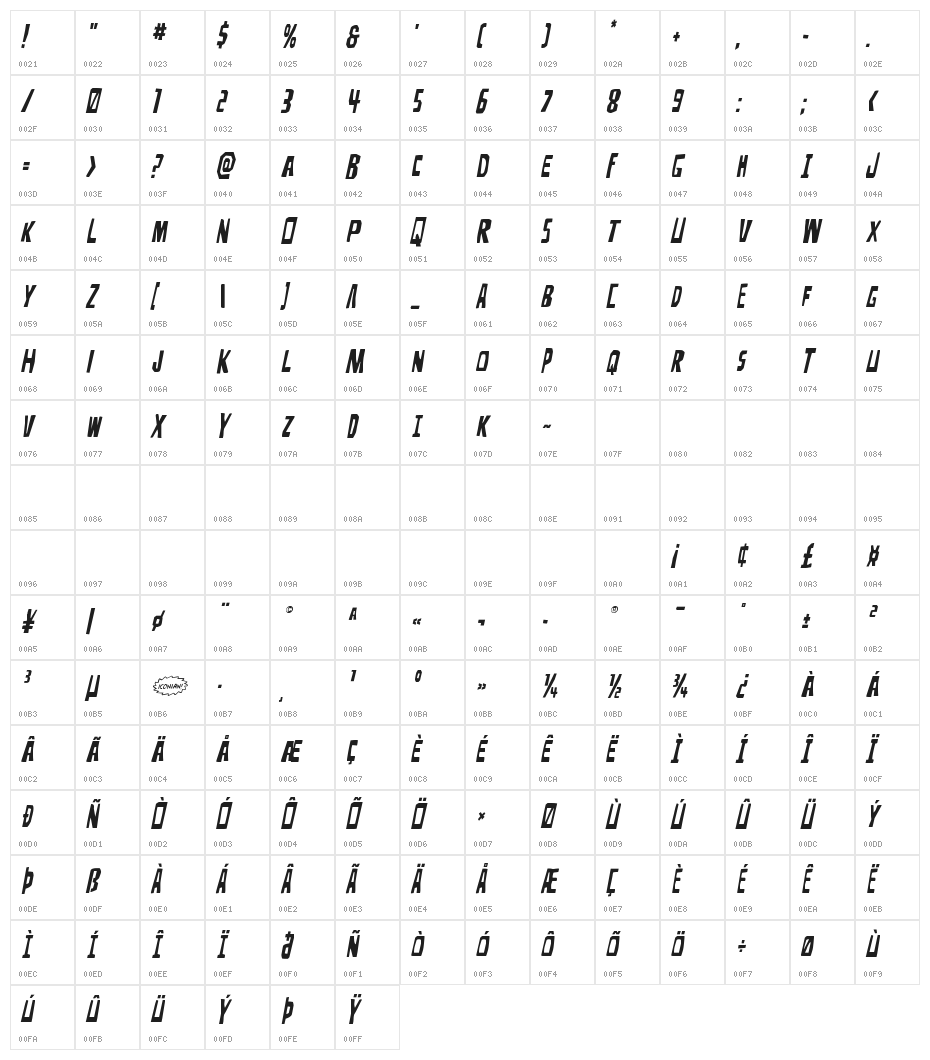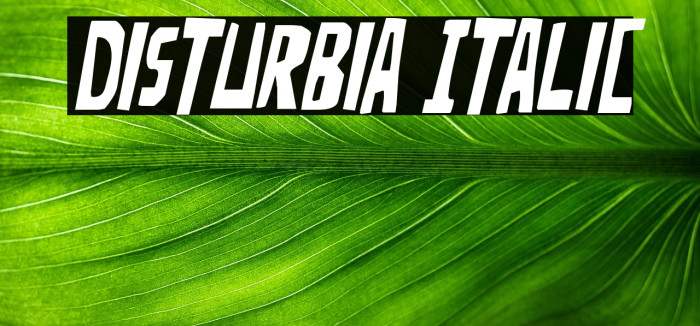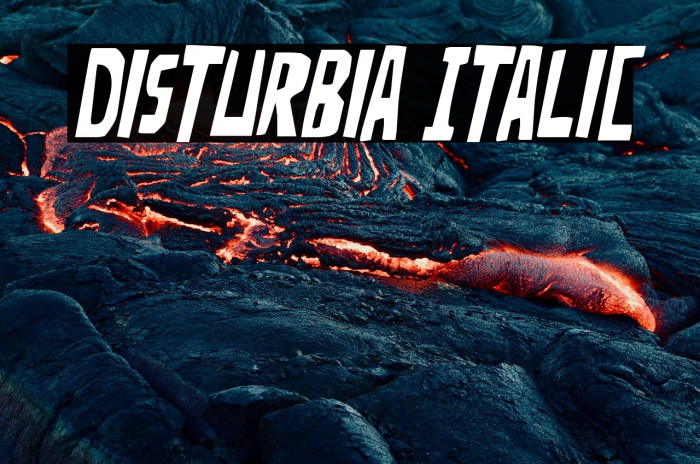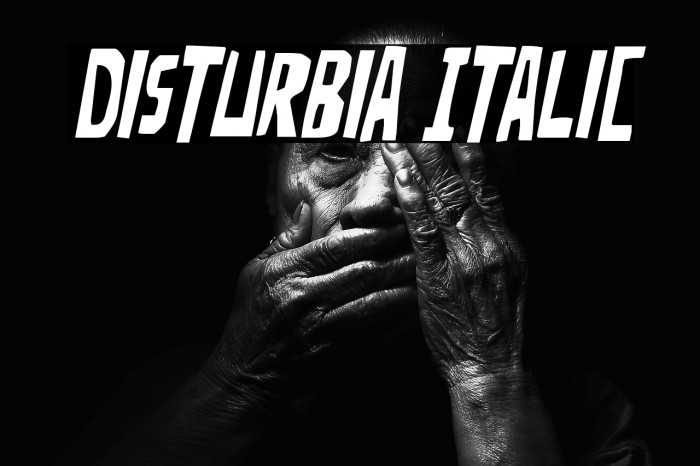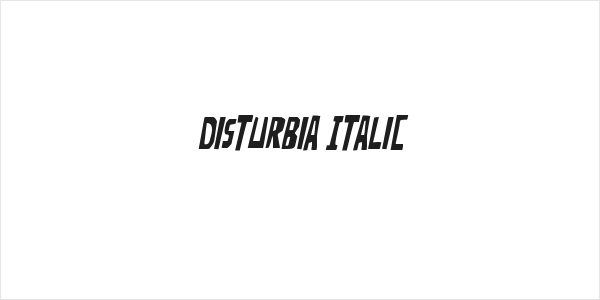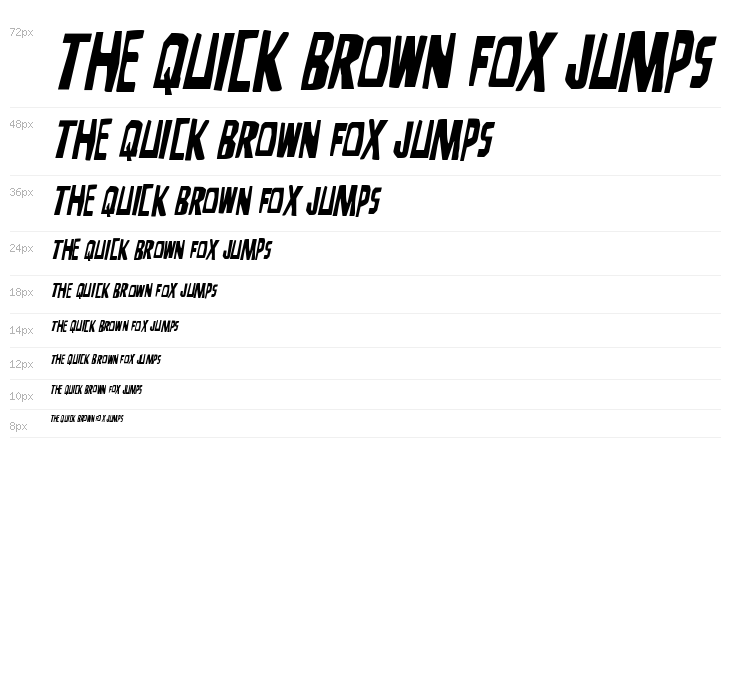
Disturbia Italic Font
Disturbia Italic Description
This font features a bold and dynamic style with a strong italic slant, giving it a sense of motion and energy. The characters are sharply angled, with a slightly condensed width that enhances its compact appearance. The uppercase and lowercase letters maintain a consistent design, with the uppercase being more prominent and commanding. Numbers and special characters follow the same angular and bold style, ensuring uniformity across all glyphs. The font's high contrast in stroke thickness adds to its striking visual impact, making it ideal for attention-grabbing designs.
| Proposed Projects | Ideal for sports branding, action movie posters, dynamic logos, and edgy graphic design projects. |